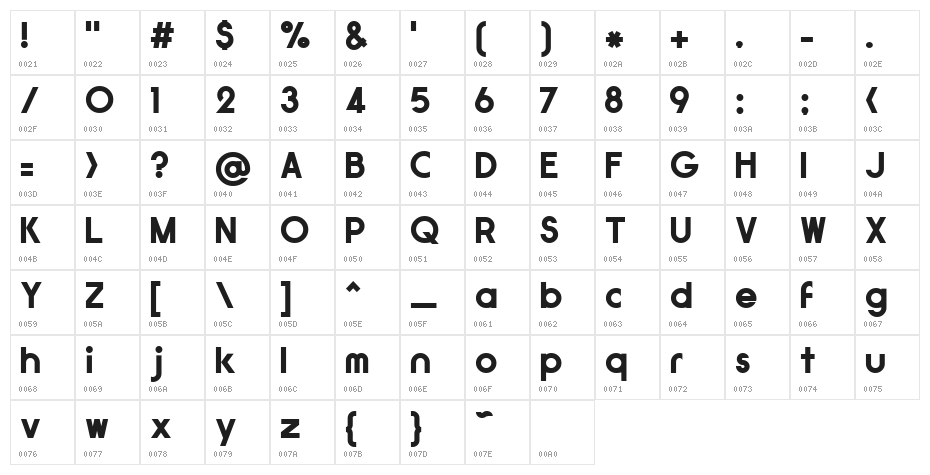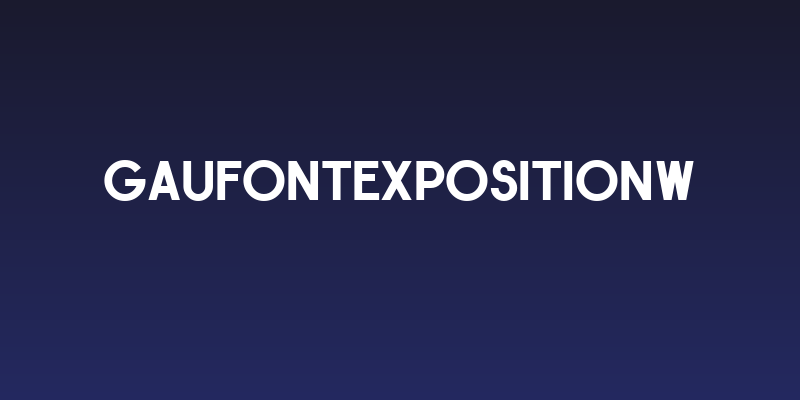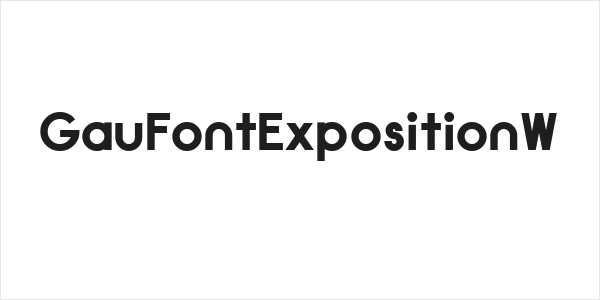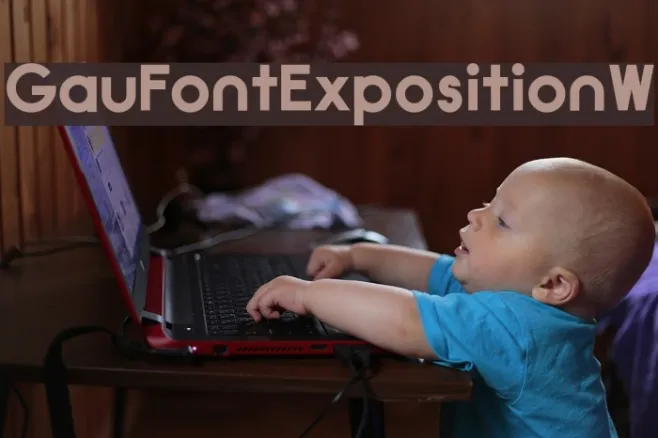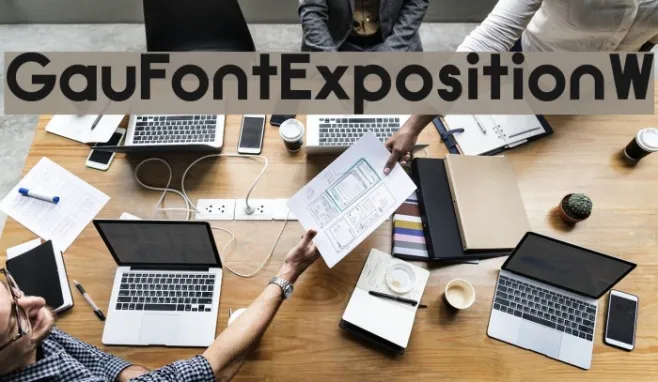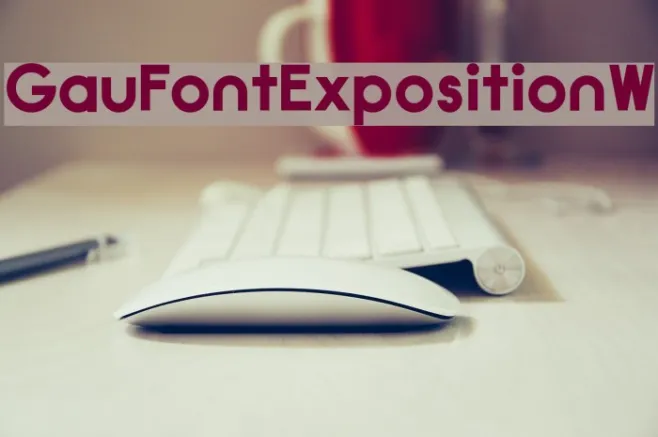
GauFontExpositionW Font
GauFontExpositionW Description
This font features bold, geometric letterforms with a strong presence. The characters are uniformly thick, creating a sense of stability and modernity. The uppercase letters are particularly striking, with clean lines and a consistent weight throughout. The lowercase letters maintain the same boldness, offering a cohesive look across different text cases. Numbers are equally bold and clear, making them highly legible. The special characters are designed to match the overall style, ensuring consistency in any text application. This font's simplicity and strength make it versatile for various design needs.
| Proposed Projects | Ideal for branding, headlines, posters, and any project requiring a strong visual impact. |